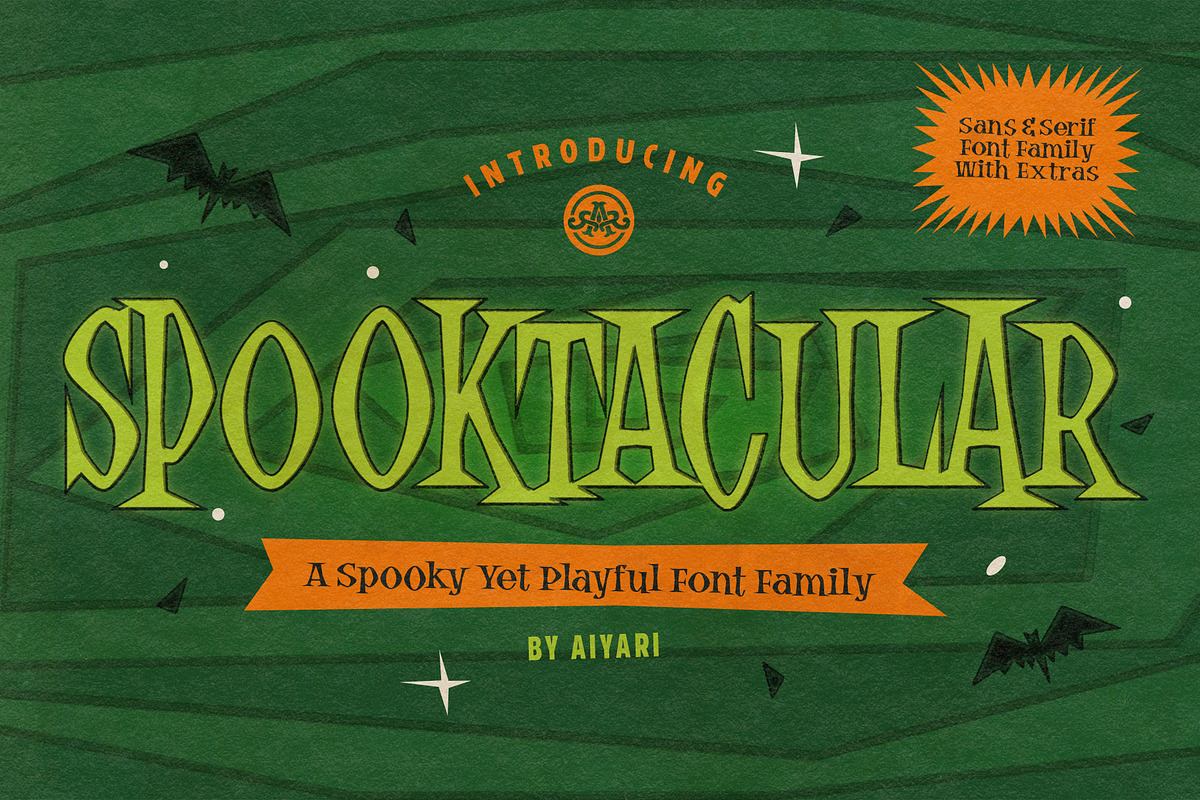
Spooktacular Font Family + Extras Free Download is a fun, spooky, and playful type collection designed to bring Halloween-themed projects to life with character and charm. Please note, you are required to purchase this font family for commercial use. It is available for free download for testing and personal projects only.
Featuring a variety of quirky display fonts and creepy-cute extras like icons and illustrations, Spooktacular is perfect for party invitations, trick-or-treat bags, posters, stickers, kids’ crafts, and seasonal branding. Each font in the set adds personality—ranging from spooky to silly—making it ideal for all ages.